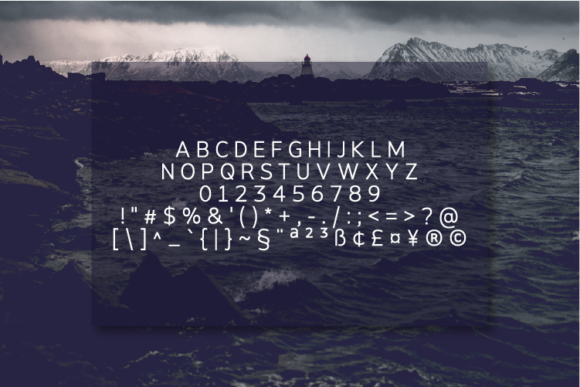
Introduction to Hunzello Medium Font
As a designer, there’s nothing quite like the thrill of bringing a creative project to life. You’re sifting through a sea of design resources, searching for that perfect font to give your vision the edge it needs. And then, it hits you – the Hunzello Medium Font. Its sleek, modern aesthetic is the perfect complement to any design, whether you’re working on a high-profile branding project or a personal passion project.
With its clean and minimalist feel, the Hunzello Medium Font is a valuable addition to any designer’s toolkit. Its versatility makes it a great choice for both formal and non-formal designs, and its high-quality design ensures that your work will stand out from the crowd. Plus, with a free download available, you can start experimenting with this design resource right away – even on a transparent background, if you like.
Whether you’re a seasoned pro or just starting out, the Hunzello Medium Font is a must-have for any designer looking to elevate their work to the next level. So why settle for anything less when you can have a font that’s as clean and beautiful as this one?
Key Features of Hunzello Medium Font
- Unique characteristics include its clean, modern aesthetic and versatility in application across various design projects.
Honest Review: Hunzello Medium Font
I recently had the chance to work with the Hunzello Medium Font, and I must say it’s been a great addition to my design resource library. The font itself is high quality, with a clean and modern aesthetic that’s perfect for creative projects.
- ✨ The Hunzello Medium Font has a very transparent background, making it easy to pair with other fonts and backgrounds.
- ✨ The Hunzello Medium Font is incredibly versatile, suitable for a wide range of design projects, from logos to typography.
- ⚠️ The font may not be suitable for large-scale text or headings, as it can become difficult to read at larger sizes.
- ⚠️ The Hunzello Medium Font may not be the best choice for projects requiring a bold or dramatic font.
Overall, I’m really impressed with the Hunzello Medium Font. It’s a great addition to any design resource library, and I’ve already found myself using it in a number of my creative projects. If you’re looking for a high-quality, free font, I’d definitely recommend giving it a try.
The Hunzello Medium Font is perfect for a variety of design projects, including brochures, flyers, business cards, and website headers. It’s also great for creating eye-catching social media graphics and presentations.
Tips for Getting the Most Out of Hunzello Medium Font
To get the most out of Hunzello Medium Font, use it with a transparent background to create a modern and sleek design. Experiment with different font sizes and styles to add visual interest to your design project.